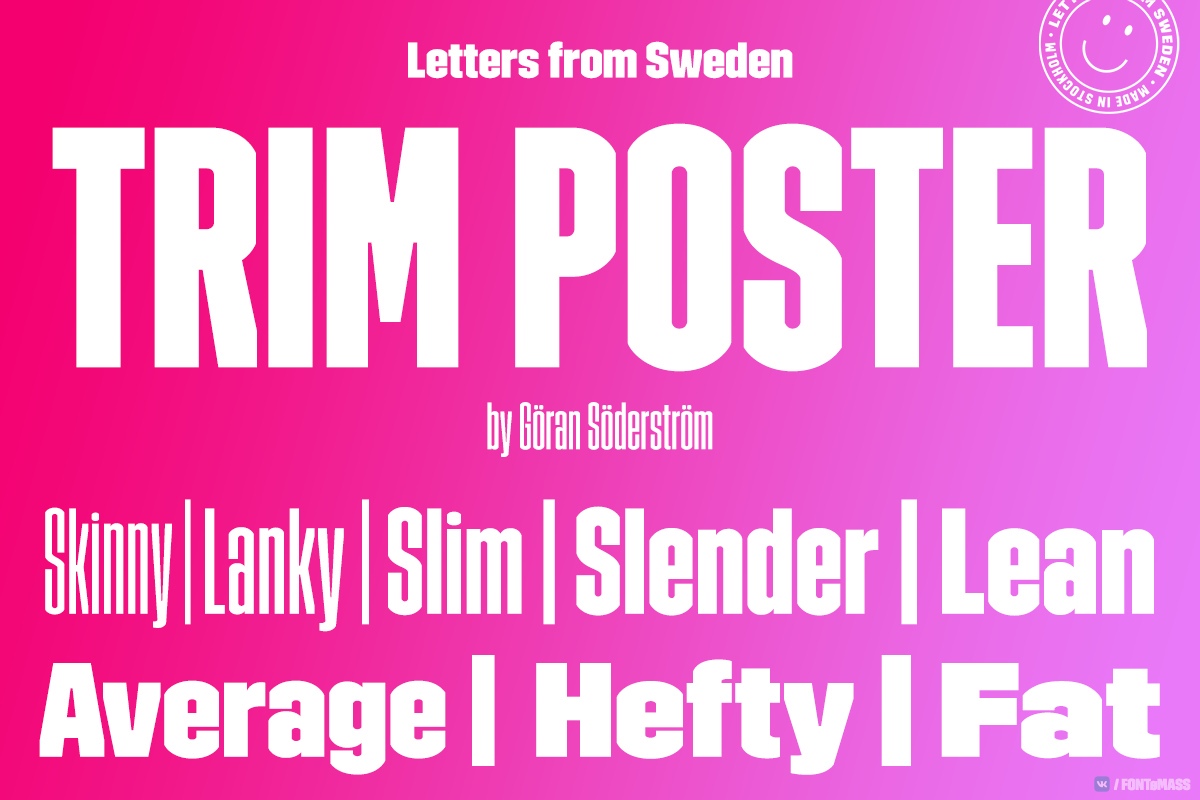
Trim Poster Font
Trim Poster Font is perfect for movie posters, concert advertisements, event flyers, exhibition banners, theatrical productions, music festival graphics, sports announcements, promotional materials, large-scale signage, and eye-catching display headlines.
What makes Trim Poster Font so exciting is its bold, condensed structure that maximizes impact while maintaining exceptional clarity at large sizes, making it the ultimate choice for grabbing attention from a distance. This typeface commands immediate attention through its strong vertical emphasis and clean geometric construction that cuts through visual noise with remarkable effectiveness. The font's dynamic presence stems from its ability to deliver maximum message impact in minimal space, making every word count while creating powerful visual hierarchy that guides viewer attention exactly where it needs to go.
Trim Poster Font comes in multiple weights and styles including Light, Regular, Bold, Extra Bold, Black, and Condensed variations, along with matching Italic versions that provide comprehensive flexibility for complex poster layouts and multi-level messaging systems.
Whether you're designing impactful advertising campaigns, creating memorable event promotions, or developing bold brand communications, Trim Poster Font Free Download delivers uncompromising visibility and professional polish. This powerful display typeface excels in high-impact applications where readability and instant recognition are paramount concerns. The font's precisely engineered letterforms feature optimized spacing and proportions that ensure maximum legibility even when viewed from significant distances or in challenging lighting conditions.
Advertising professionals and event marketers consistently select Trim Poster Font for campaigns requiring immediate visual impact and clear message delivery. Its commanding presence makes it particularly valuable for entertainment industry promotions, public announcements, and retail advertising where competition for attention is fierce. The font's versatile weight range allows designers to create sophisticated typographic hierarchies while maintaining consistent brand voice across various promotional materials and marketing touchpoints.